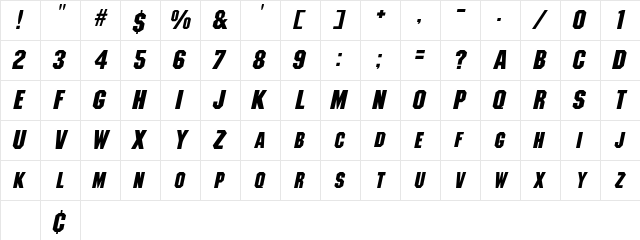
AtlasSCapsSSK Italic Font Preview
AtlasSCapsSSK Italic
Design Context for AtlasSCapsSSK Typeface
AtlasSCapsSSK offers clean, dependable letterforms without strong stylistic allegiance, making it a practical choice for designers who need flexibility. Its italic angle brings a sense of urgency and motion to the letterforms.
Pro Tip: Try AtlasSCapsSSK for annotation and caption copy alongside an upright companion — the contrast in angle creates a dynamic but ordered typographic system.